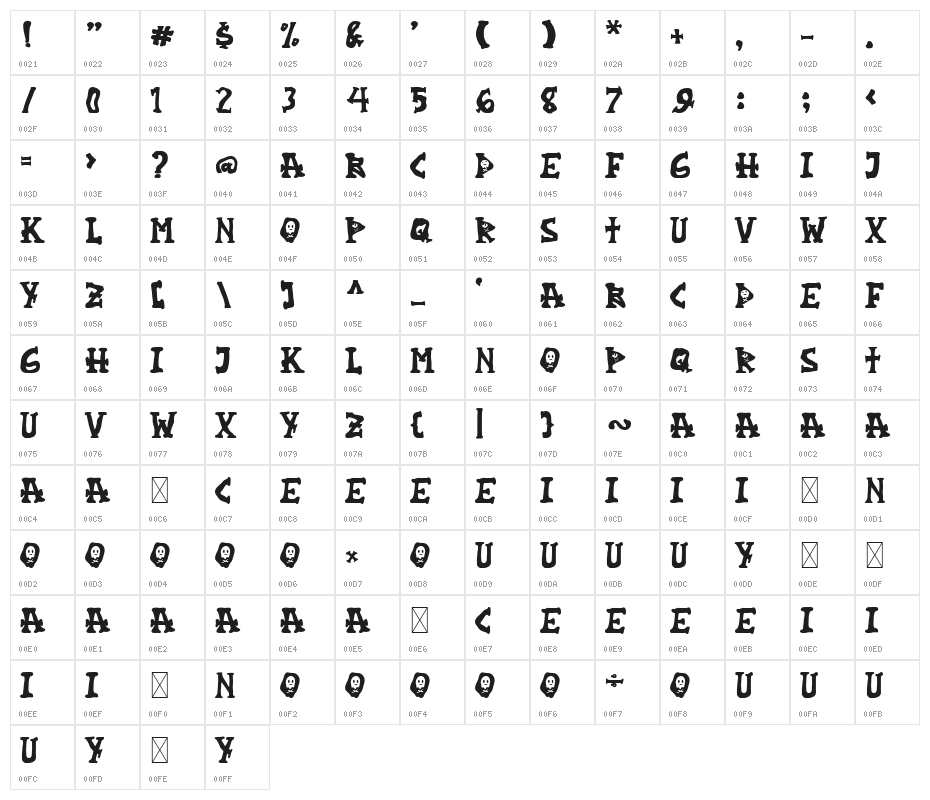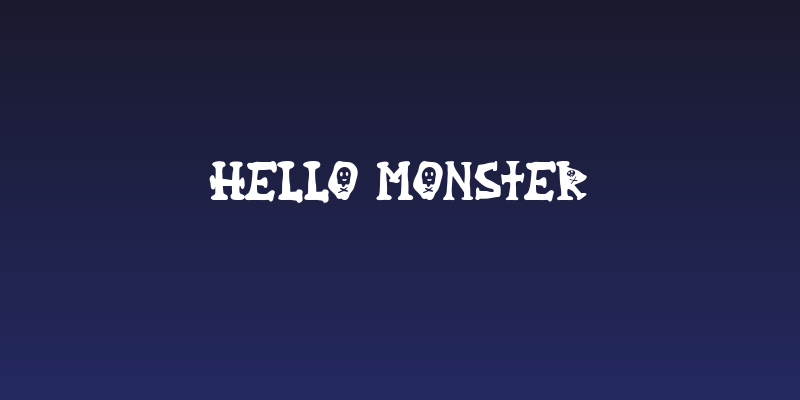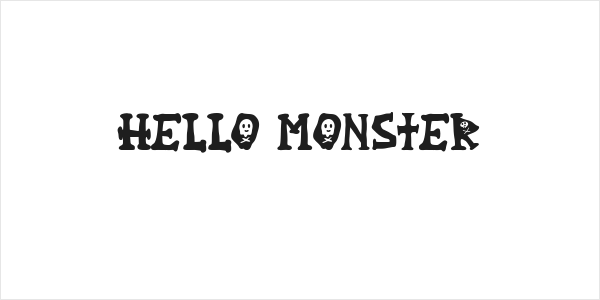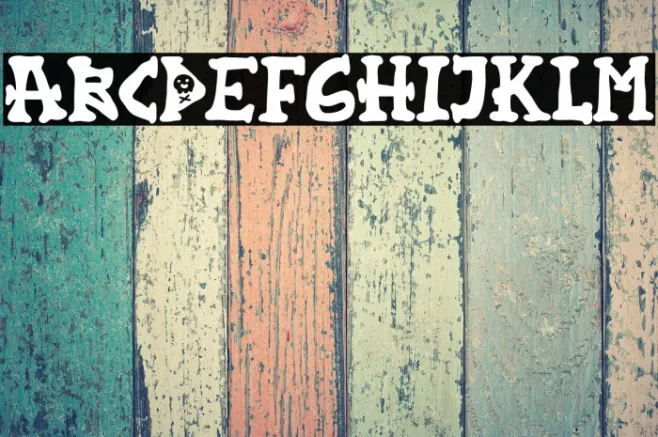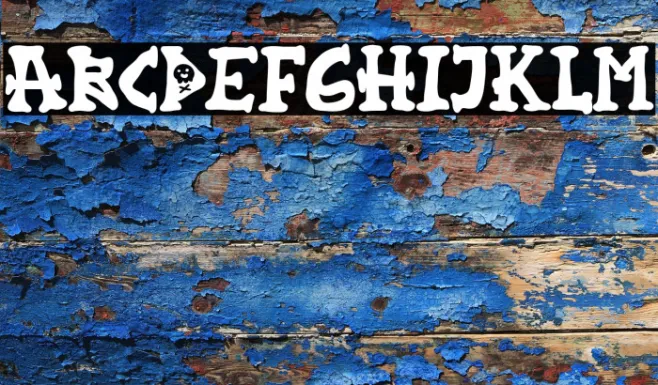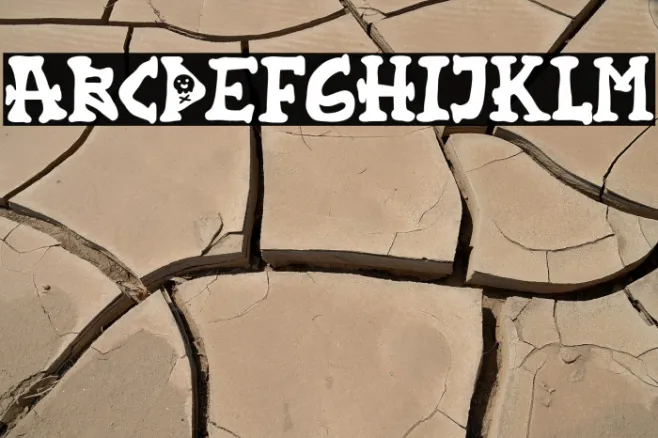
Hello Monster Font
Hello Monster Description
This font features a playful and spooky design, incorporating elements like skulls and bones within the characters. The letters are bold and have a hand-drawn appearance, with uneven edges and a slightly irregular shape that adds to its quirky charm. The uppercase and lowercase letters maintain a consistent style, while the numbers and special characters are designed to match the overall theme. The font's unique personality makes it ideal for Halloween-themed projects or any design that requires a touch of whimsy and eeriness.